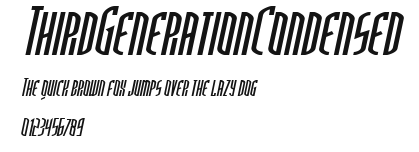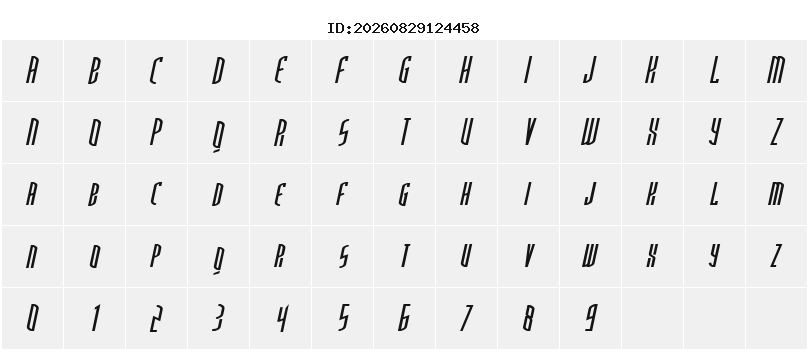
ThirdGenerationCondensed Preview
• Font Name: ThirdGenerationCondensed
• Font ID: SWFTE:ThirdGenerationCondensed Italic
• Full Font Name: ThirdGenerationCondensed Italic
About ThirdGenerationCondensed.ttf
ThirdGenerationCondensed.ttf is a modern, elegant sans-serif font designed for ultimate readability and visual harmony. Perfect for branding, headlines, web design, and print materials.